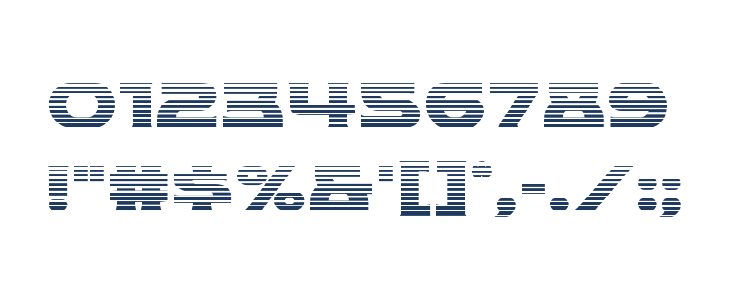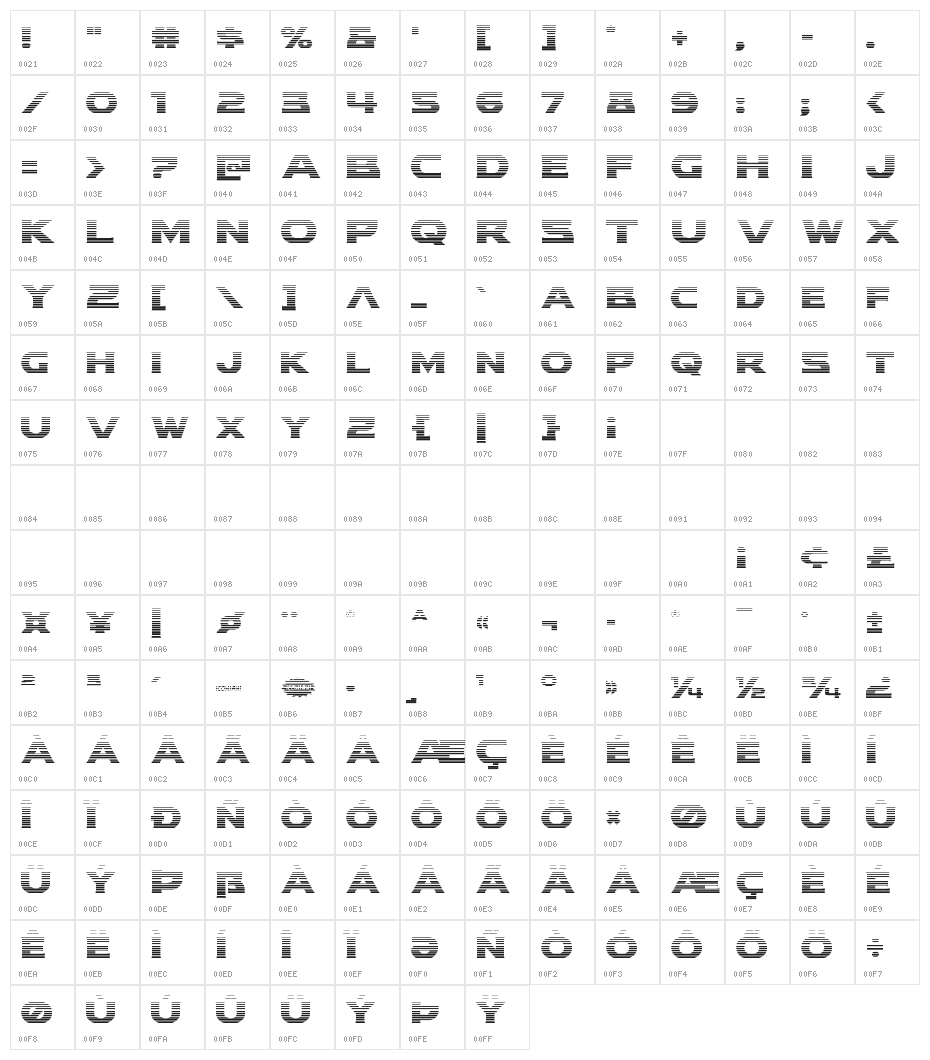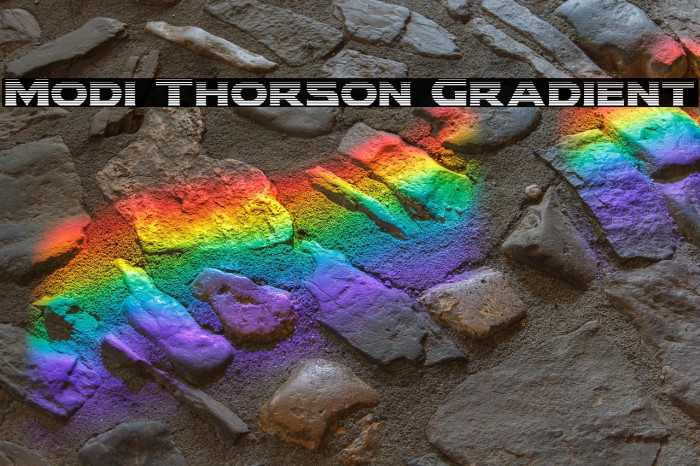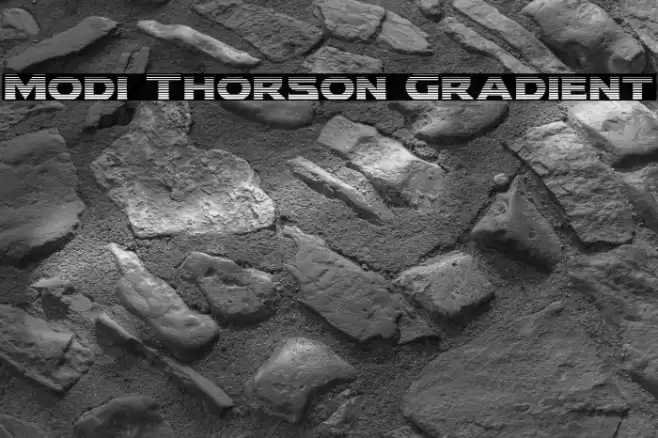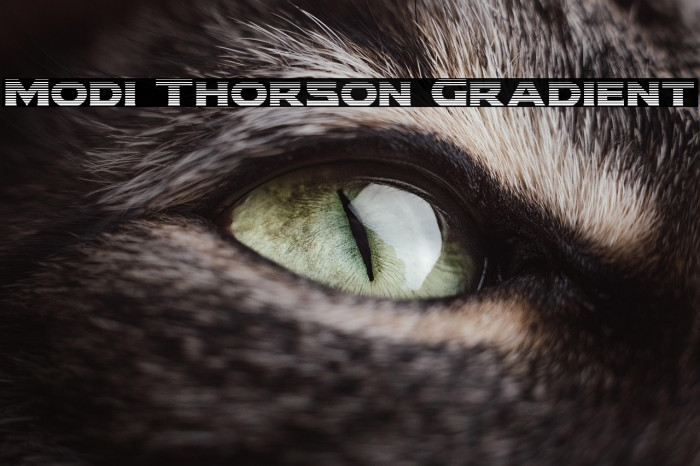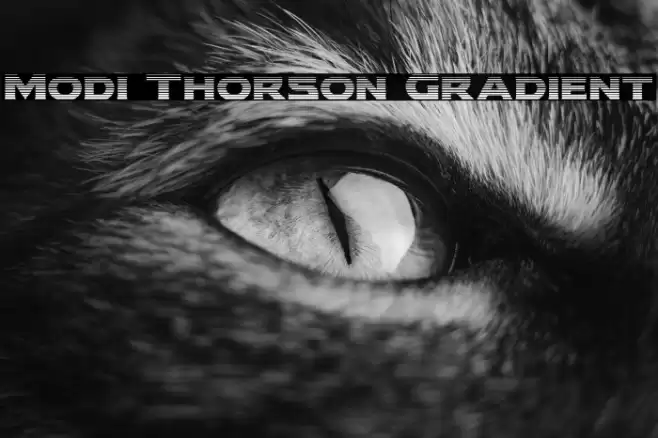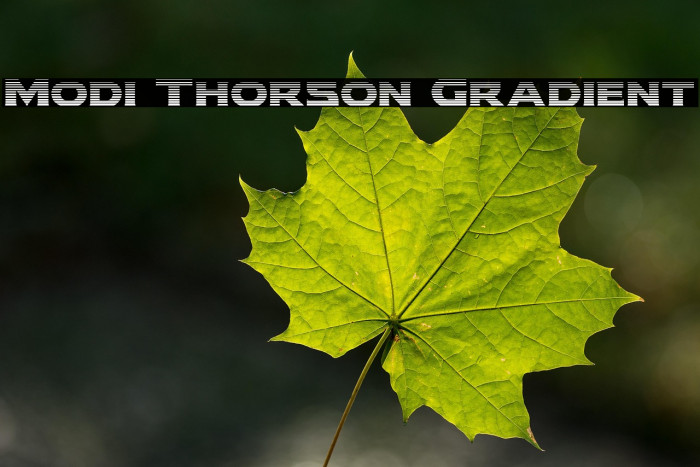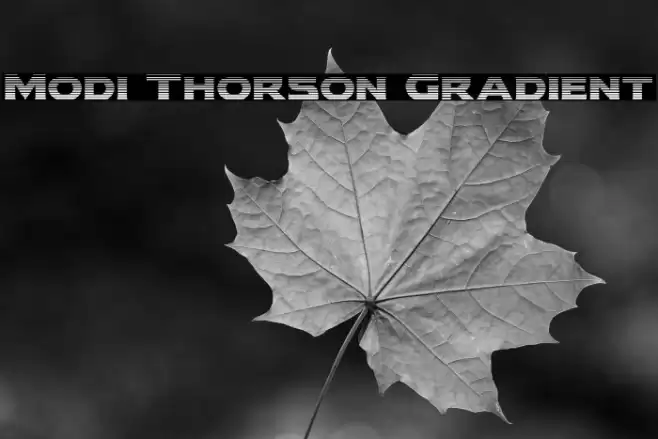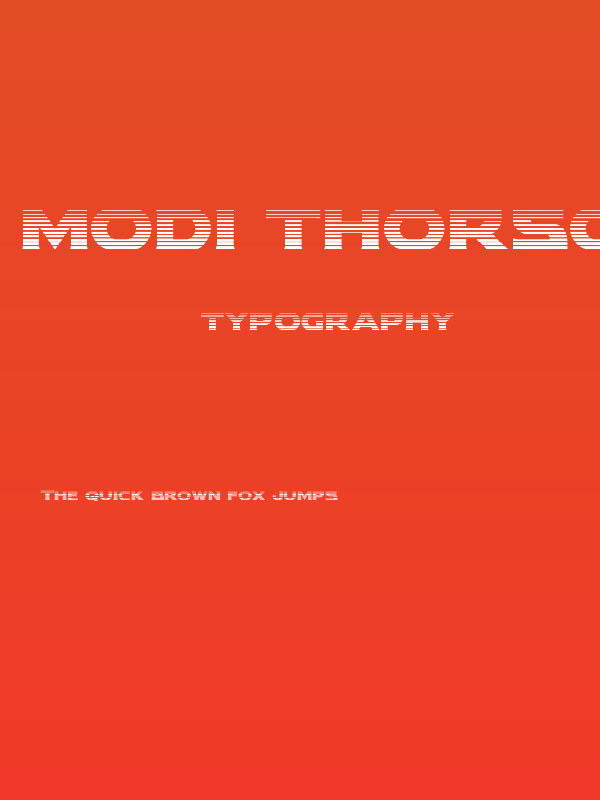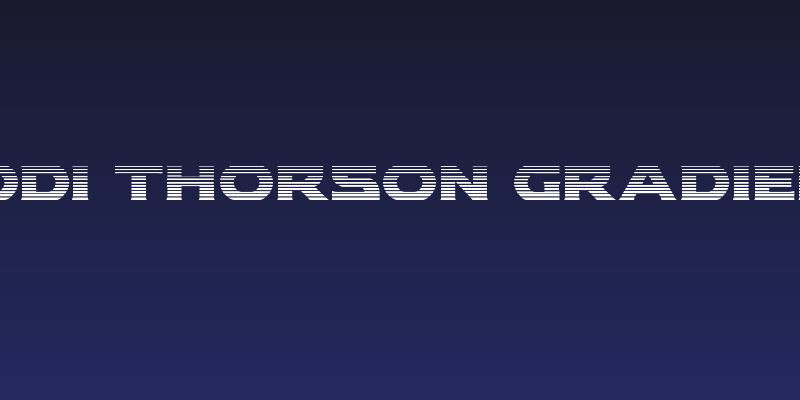
Modi Thorson Gradient Font
Modi Thorson Gradient Description
This font features a bold, futuristic design with a distinct horizontal line pattern running through each character, creating a gradient effect. The uppercase letters are structured with sharp angles and clean lines, giving a modern and technological feel. The numerals and special characters follow the same design principles, ensuring consistency across all glyphs. The font's unique style is eye-catching and suitable for projects that require a strong visual impact.
| Proposed Projects | Ideal for technology branding, sci-fi movie posters, video game titles, and modern advertising campaigns. |